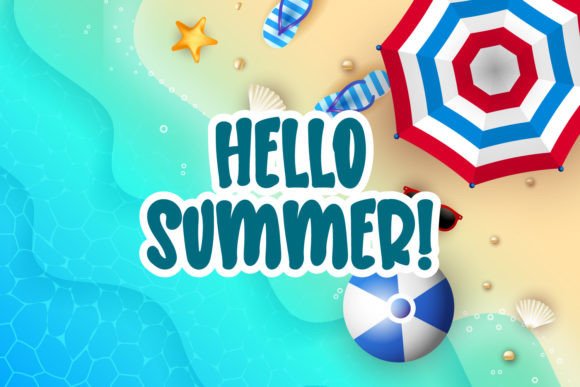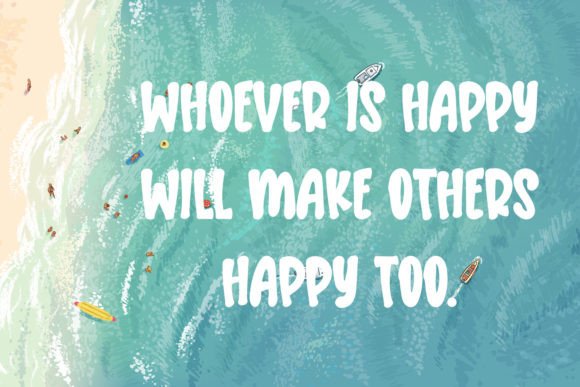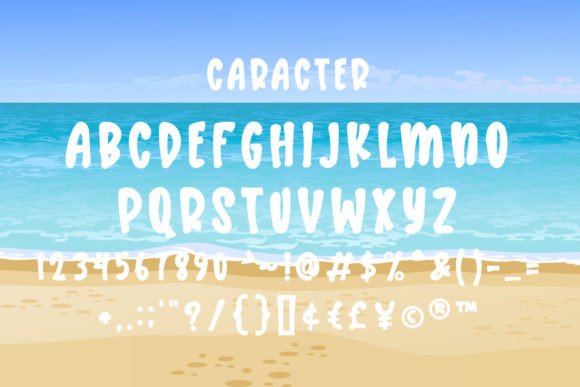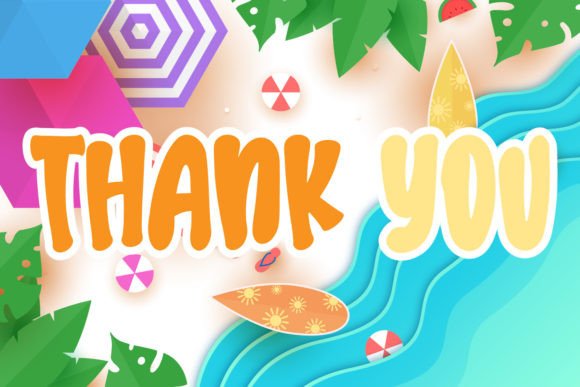
Groovy Island Font: Elevate Your Designs with a Cute and Fun Display Font
Are you tired of using the same old fonts in your designs? Look no further than the Groovy Island Font, a cute and fun display font that’s perfect for adding a touch of personality to your creations. Whether you’re a designer, crafter, or DIY enthusiast, this font is sure to become an incredible asset to your font library.
What Makes Groovy Island Font So Special?
Groovy Island Font is a unique and versatile font that’s perfect for a wide range of design projects. Its playful and whimsical style makes it ideal for designs that require a fun and youthful touch. The font’s cute and quirky characters are sure to capture the attention of your audience and leave a lasting impression.
Perfect for Packaged Food Products
One of the standout features of Groovy Island Font is its suitability for packaged food products. Whether you’re designing labels for snacks, milk, yogurt, jelly, or any other type of food product, this font is sure to be a hit. Its fun and playful style is perfect for adding a touch of personality to your packaging and making your products stand out on store shelves.
Why Designers and Crafters Love Groovy Island Font
Designers and crafters love Groovy Island Font for its versatility and ease of use. The font is perfect for a wide range of design projects, from branding and packaging to crafting and DIY projects. Its clean and simple design makes it easy to read and use in a variety of contexts.
Key Features of Groovy Island Font
- Cute and fun display font: Groovy Island Font is a playful and whimsical font that’s perfect for adding a touch of personality to your designs.
- Versatile: The font is suitable for a wide range of design projects, from packaging and branding to crafting and DIY projects.
- Easy to read: The font’s clean and simple design makes it easy to read and use in a variety of contexts.
- Perfect for food packaging: Groovy Island Font is ideal for designing labels and packaging for food products, such as snacks, milk, yogurt, and jelly.
Tips and Tricks for Getting the Most Out of Groovy Island Font
- Experiment with different font sizes: Groovy Island Font looks great in a variety of font sizes, from small and delicate to large and bold.
- Pair with other fonts: Try pairing Groovy Island Font with other fonts to create unique and interesting combinations.
- Use in combination with graphics: Groovy Island Font looks great when used in combination with graphics and illustrations.
Groovy Island Font is a cute and fun display font that’s perfect for designers, crafters, and DIY enthusiasts. Its playful and whimsical style makes it ideal for a wide range of design projects, from packaging and branding to crafting and DIY projects. With its versatility, ease of use, and suitability for food packaging, Groovy Island Font is sure to become a valuable addition to your font library.